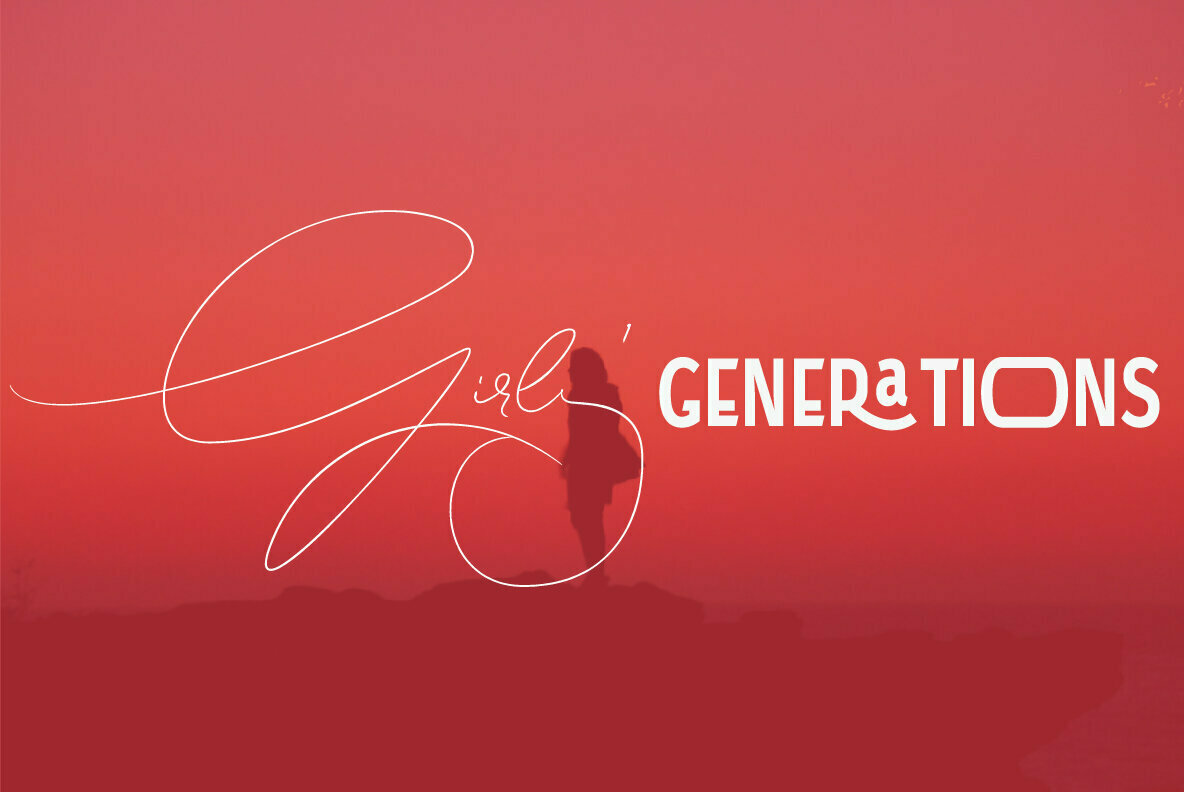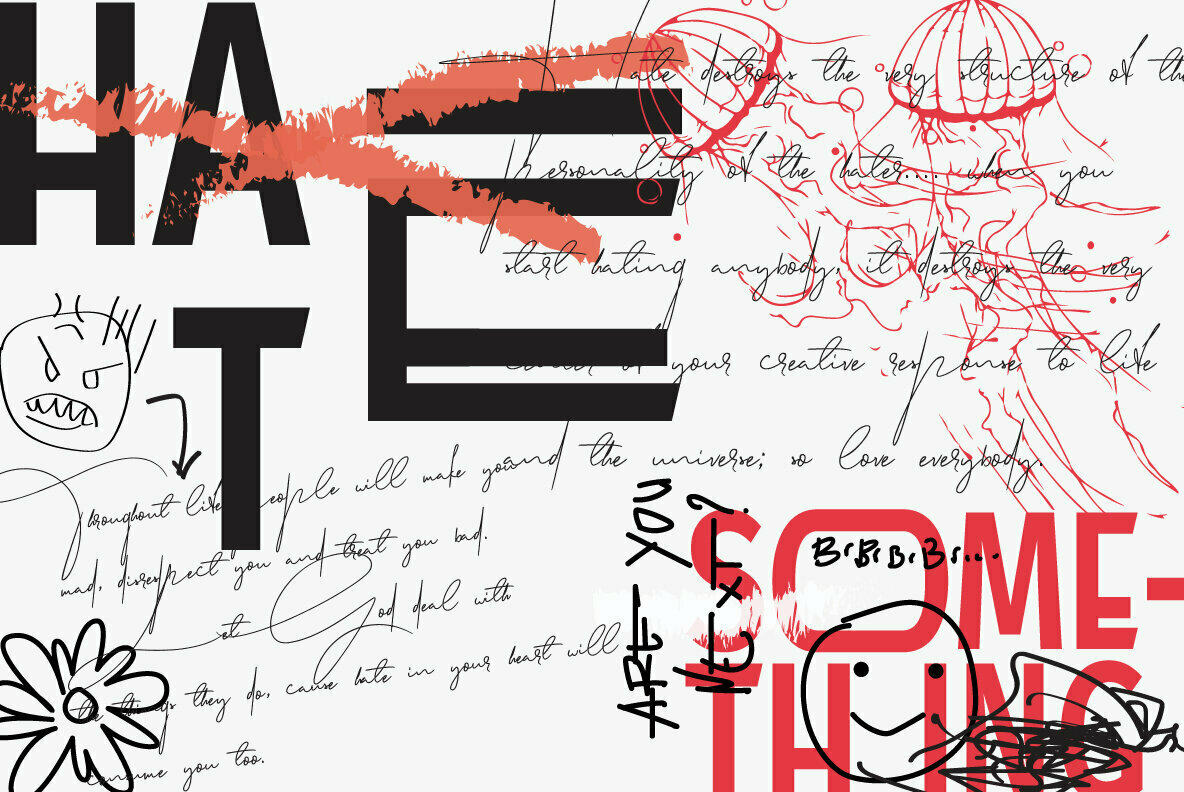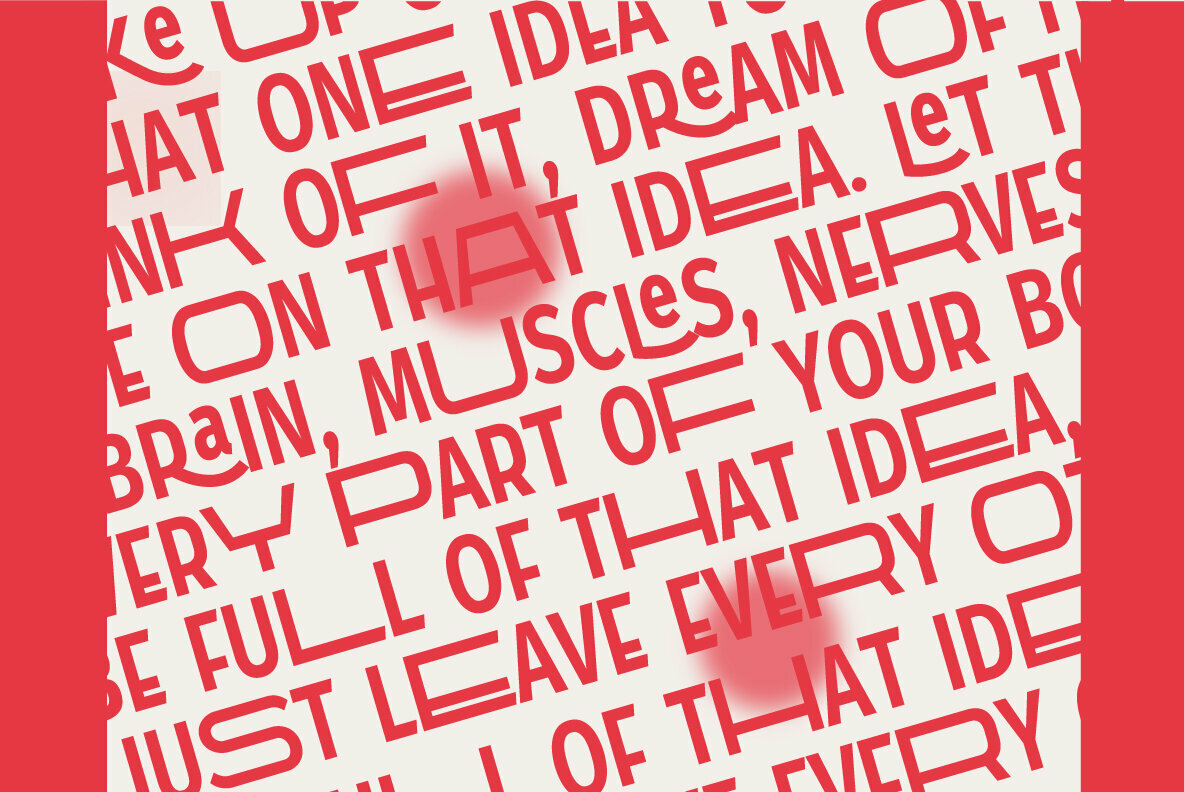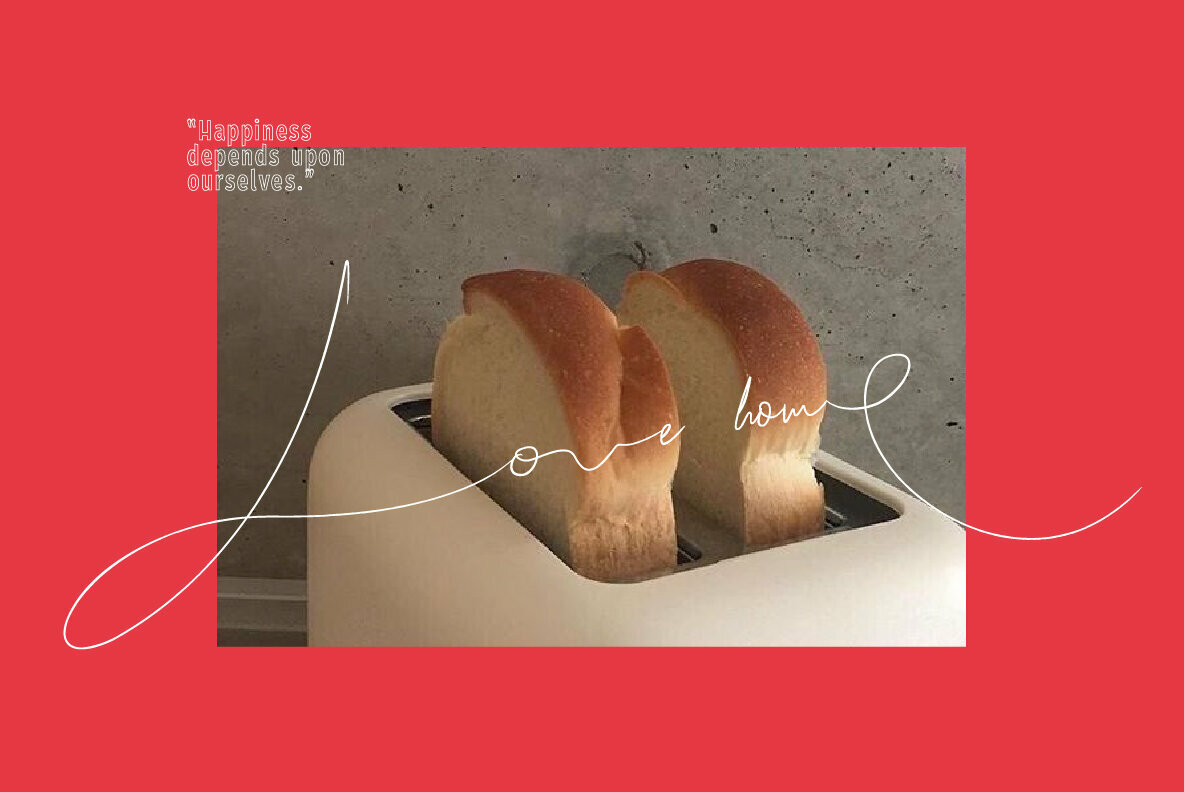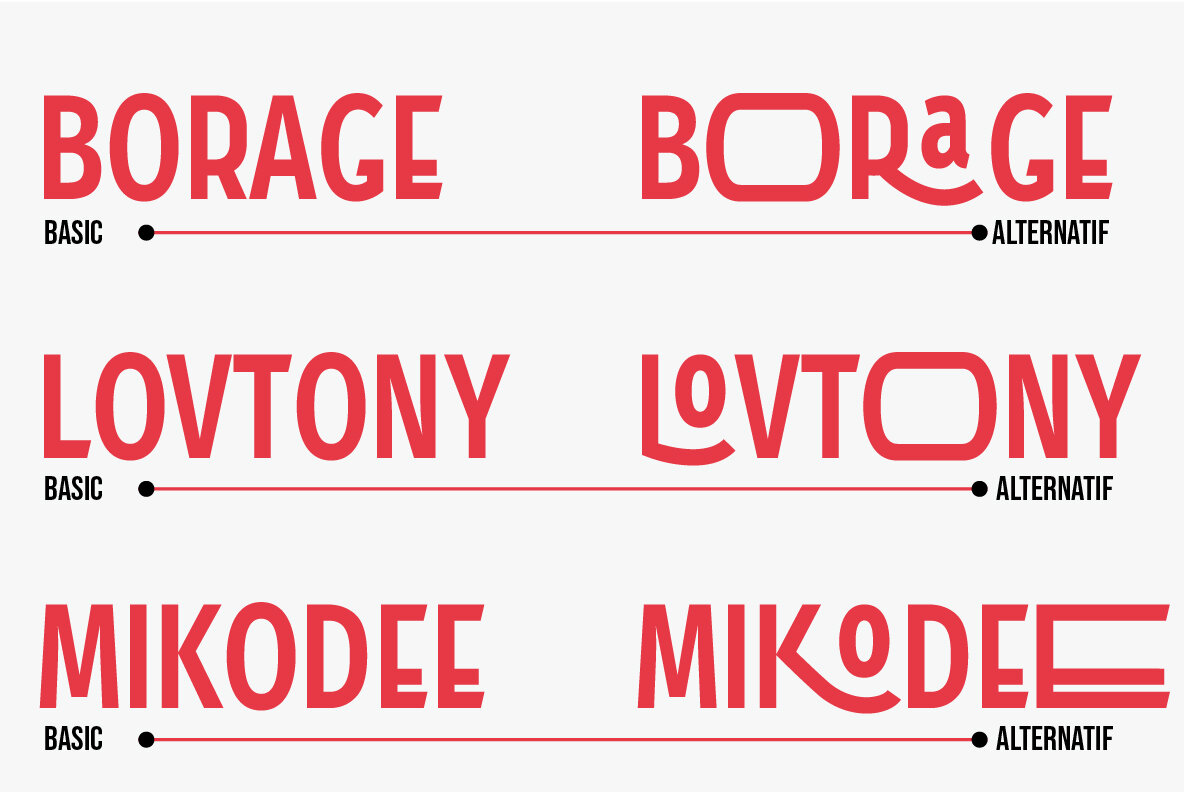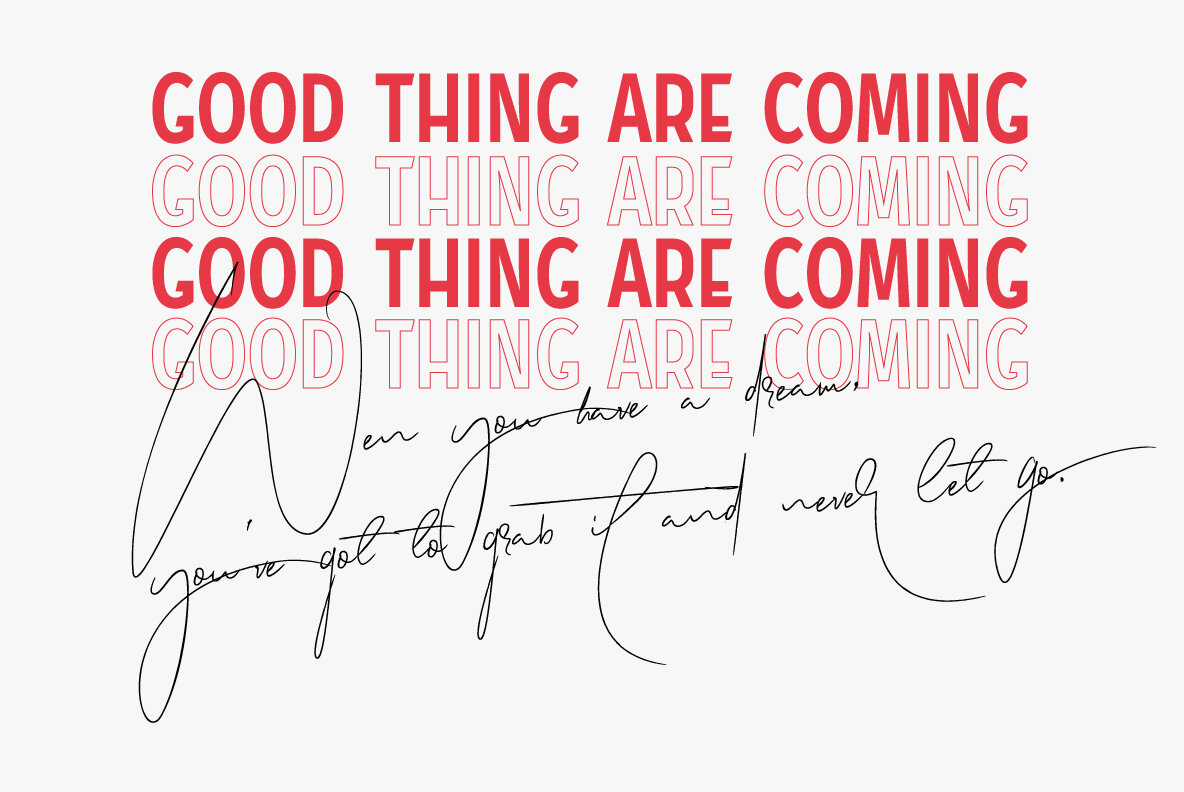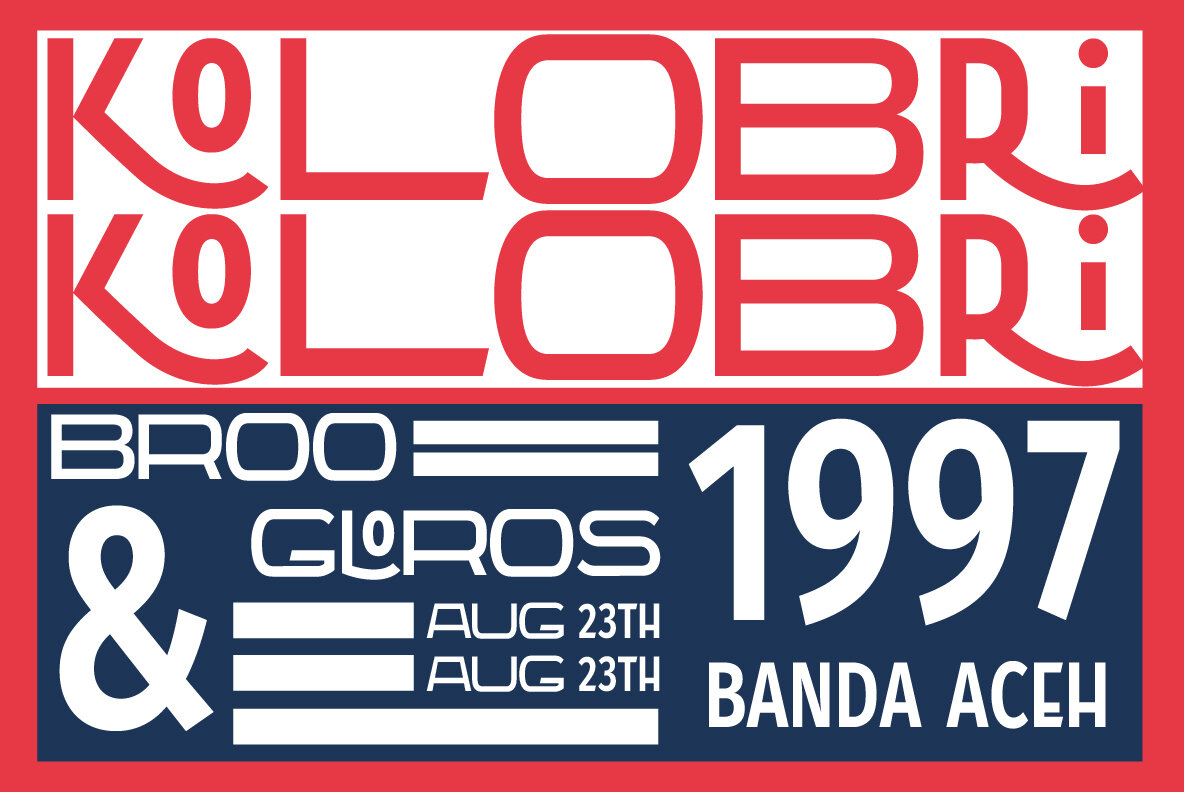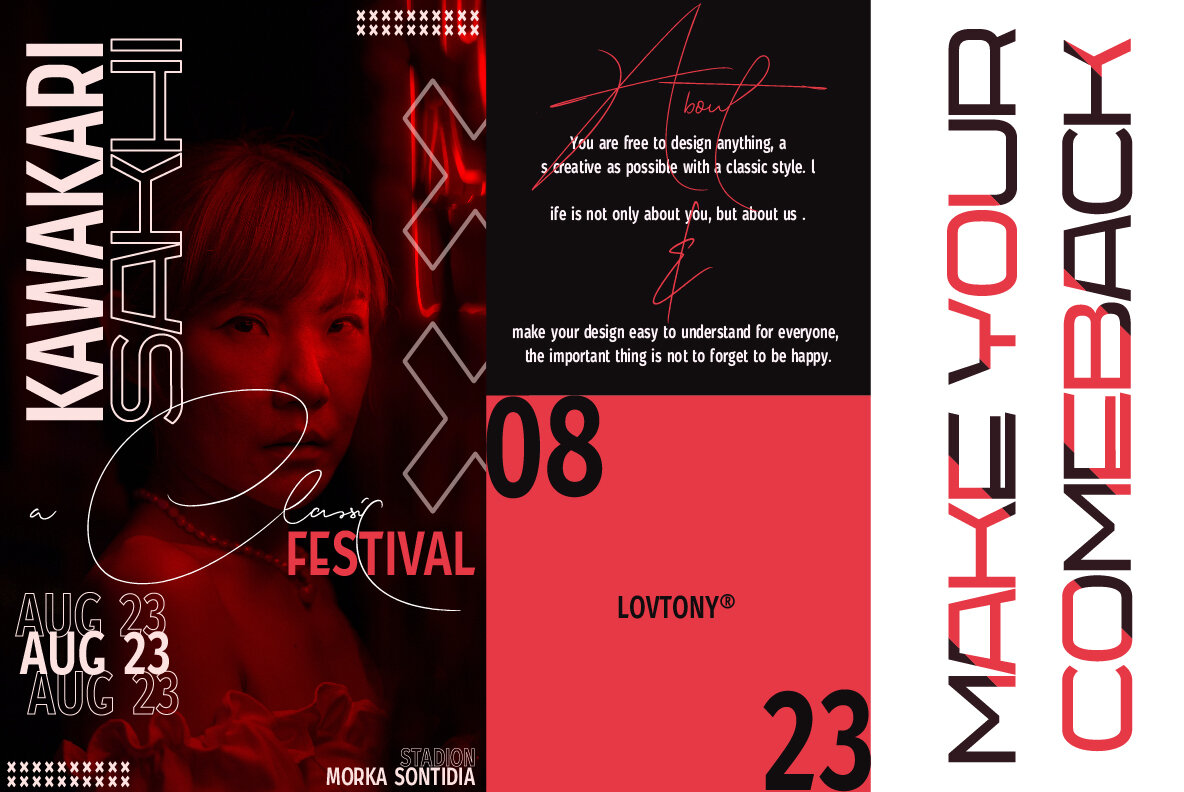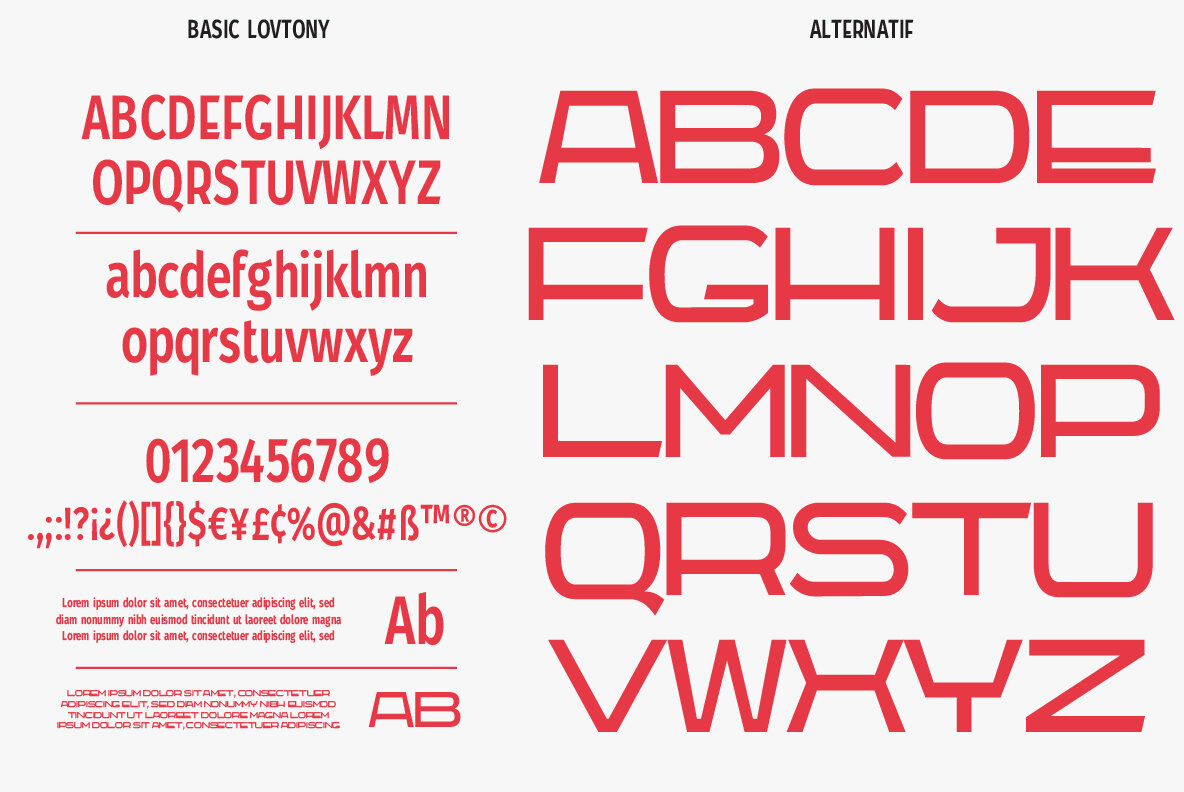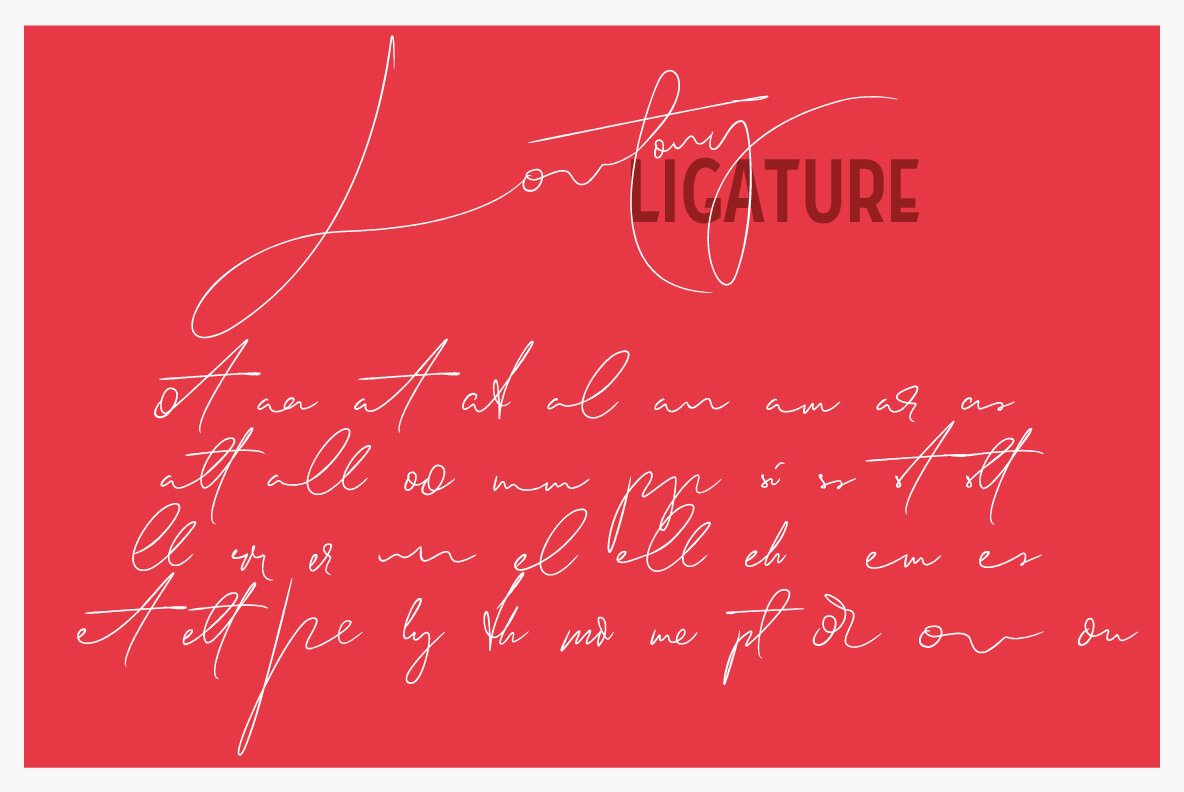
Lovtony Font
Indulge yourself in a luxurious typography pairing with Lovtony; a classic font duo consisting of an elegant Script & Sans Serif. Lovtony is also great for creating beautiful logos, posters, wedding invitations, blog posts, social media, and more!
7 Weights font
All caps
Stylistic Alternates & Ligatures
Numerals & Punctuation
Accented characters
Multiple Languages Supported